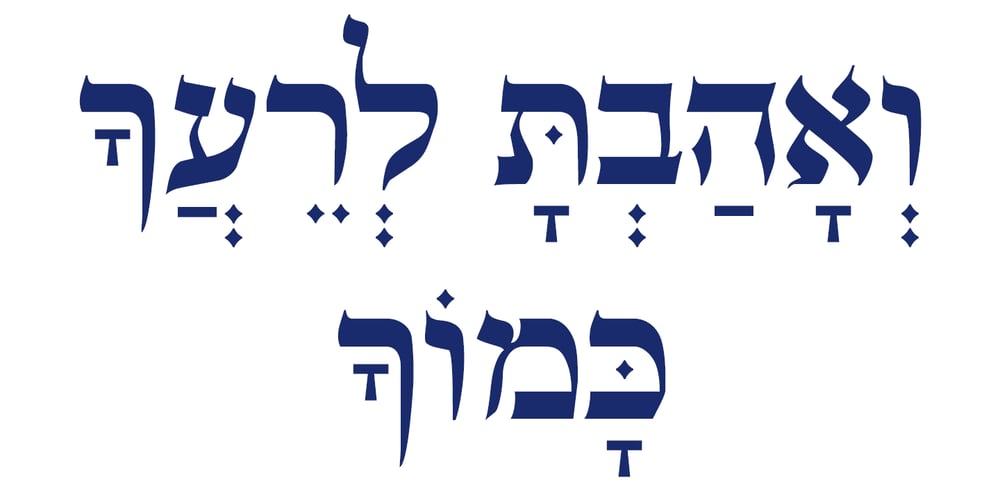
Hebrew Tsefat
Hebrew Tsefat font
Hebrew Tsefat Font Family was designed by Sami Artur Mandelbaum and published by Samtype. Hebrew Tsefat contains 1 styles and family package options. This is a beautiful typeface to invitations, posters, cover books and small texts.All diacritic marks for vocalization are present (Nikud), including shevana, kamats katan, cholam chaser and dagesh hazak.